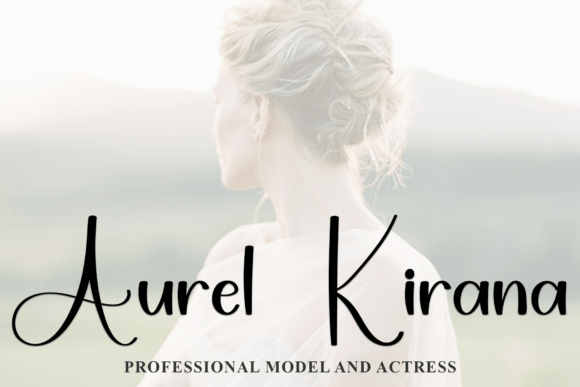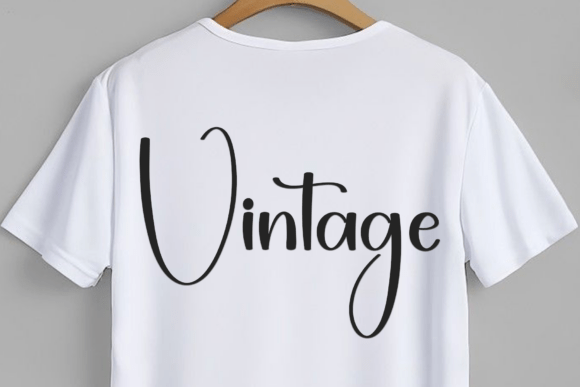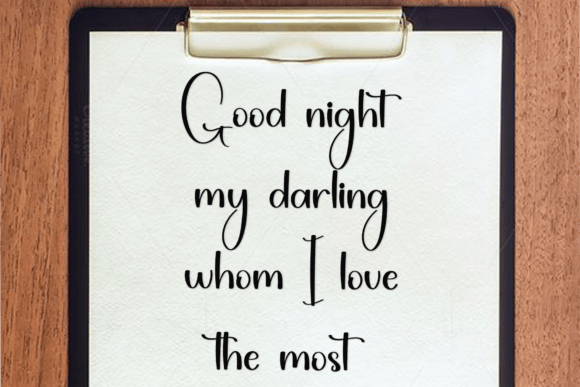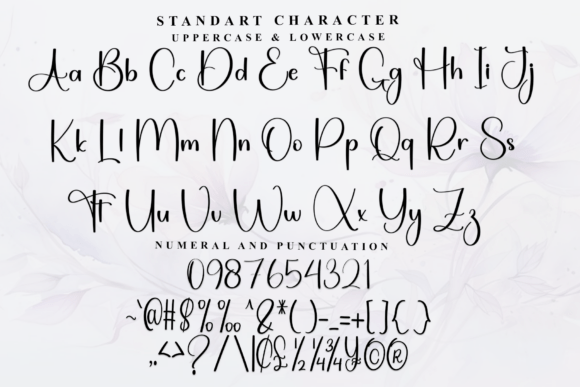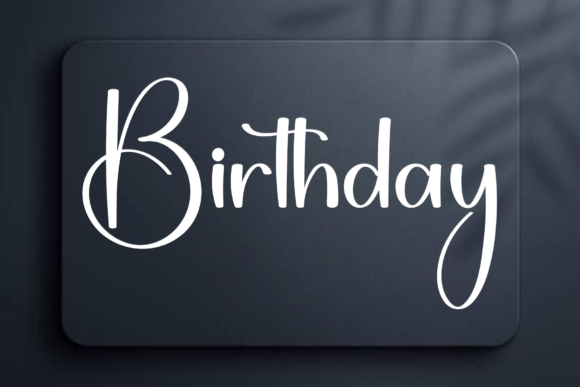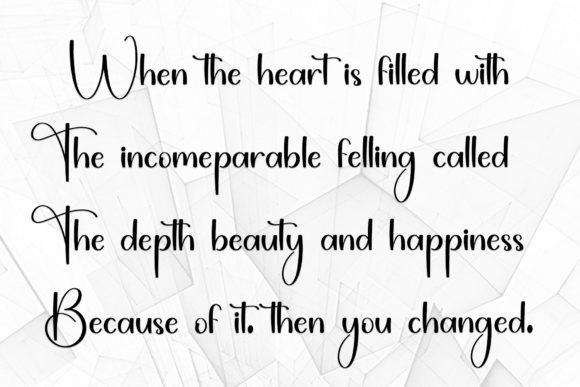
Introducing Daily Font: The Perfect Blend of Casual and Creative
Are you tired of using the same old fonts for your personal projects, invitations, and social media graphics? Look no further than Daily Font, a charming and creative typeface that exudes warmth and friendliness. With its round, playful strokes, Daily Font creates a relaxed and approachable feel that’s perfect for designers and crafters who want to add a personal touch to their work.
The Characteristics of Daily Font
Daily Font is a hand-drawn font that’s designed to be both fun and unique. Its charming aesthetic is perfect for a wide range of design applications, from personal projects to commercial use. The font’s playful strokes and rounded edges create a friendly and approachable feel that’s sure to engage your audience. Whether you’re designing an invitation, a social media graphic, or a personal blog, Daily Font is the perfect choice.
What Makes Daily Font So Special?
So, what sets Daily Font apart from other fonts on the market? For starters, it’s equipped with standard PUA Encoded glyphs, which make it compatible with a wide range of design applications, including Adobe Photoshop, Corel, Adobe Illustrator, Canva, and many others. This means that you can use Daily Font with confidence, knowing that it will work seamlessly with your design software.
The Benefits of Using Daily Font
There are many benefits to using Daily Font in your designs. Here are just a few:
• Perfect for personal projects: Daily Font is ideal for personal projects, such as scrapbooking, card making, and other crafty pursuits.
• Great for invitations: The font’s playful and friendly aesthetic makes it perfect for invitations, including birthday parties, baby showers, and other celebrations.
• Ideal for social media graphics: Daily Font is also great for social media graphics, including Facebook posts, Instagram stories, and Twitter headers.
Tips for Using Daily Font
Here are a few tips for using Daily Font in your designs:
• Pair it with other fonts: Daily Font pairs well with other fonts, including sans serif and script fonts.
• Experiment with colors: The font looks great in a variety of colors, including bright and bold hues.
• Use it for headings and body text: Daily Font is versatile enough to use for both headings and body text.
Who Can Benefit from Daily Font?
Daily Font is perfect for a wide range of designers and crafters, including:
• Scrapbookers: Daily Font is a great addition to any scrapbooking kit.
• Card makers: The font is perfect for creating handmade cards and invitations.
• Social media managers: Daily Font is great for creating social media graphics that engage and inspire.
• Graphic designers: The font is a versatile addition to any graphic designer’s toolkit.
Font Name Daily Font
Author K_IN Studio
In conclusion, Daily Font is a charming and creative typeface that’s perfect for designers and crafters who want to add a personal touch to their work. With its playful strokes and friendly aesthetic, Daily Font is ideal for personal projects, invitations, and social media graphics. Its compatibility with a wide range of design applications makes it easy to use and versatile. So why not give Daily Font a try today and see the difference it can make in your designs?